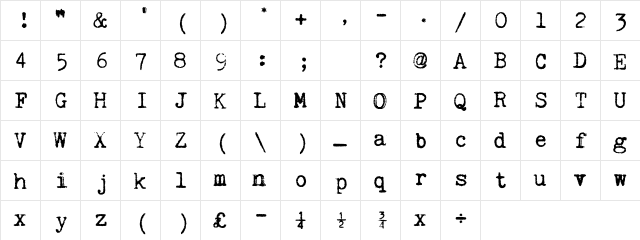
Kingthings Trypewriter Regular
| Designer | Kevin King: Kingthings 2002 |
Design Context for Kingthings Trypewriter Typeface
Kingthings Trypewriter takes a measured approach to typography — its balanced proportions and neutral character make it a reliable workhorse for both digital and print work. The delicate stroke weight brings airiness and refinement to layouts.